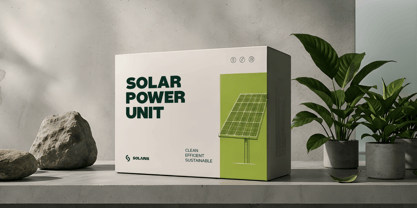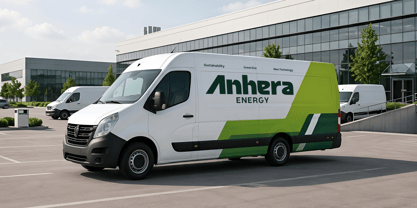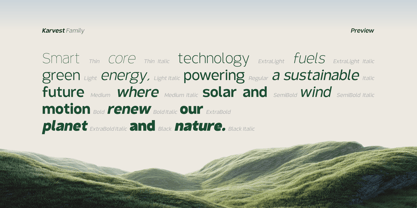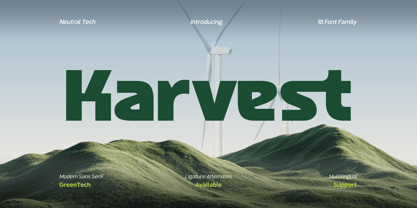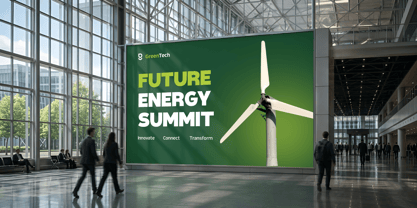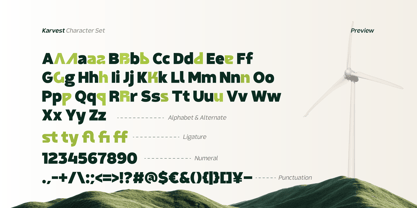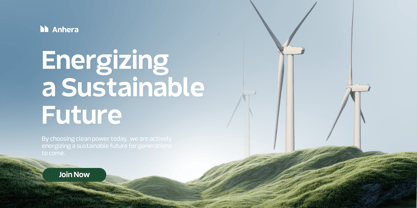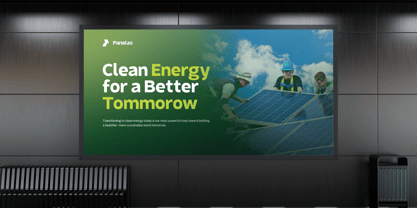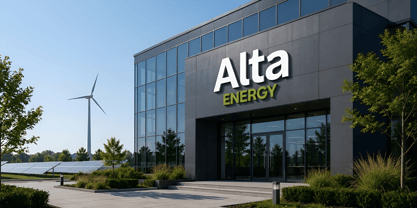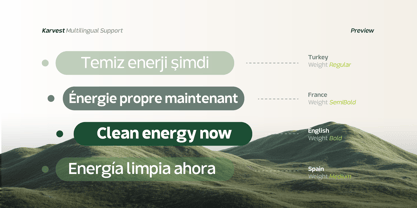
Karvest
Karvest is a modern sans serif font family inspired by the future of renewable energy, sustainable innovation, and clean technology. Designed with a balanced geometric structure, smooth curves, and contemporary proportions, this typeface delivers a professional yet approachable appearance that works perfectly for green technology brands, ESG initiatives, renewable energy companies, environmental startups, and modern corporate identities.
With its versatile font family system, Karvest performs beautifully across headlines, websites, presentations, branding projects, sustainability reports, product packaging, and digital campaigns. The clean and highly legible letterforms help communicate trust, innovation, and forward-thinking values, making it an excellent choice for businesses focused on solar energy, wind power, geothermal solutions, climate technology, and eco-conscious development.
Whether you're building a renewable energy brand, designing a clean-tech website, creating ESG communications, or crafting a modern corporate identity, Karvest provides the clarity, sophistication, and sustainable aesthetic needed to make your message stand out in today's environmentally conscious market.